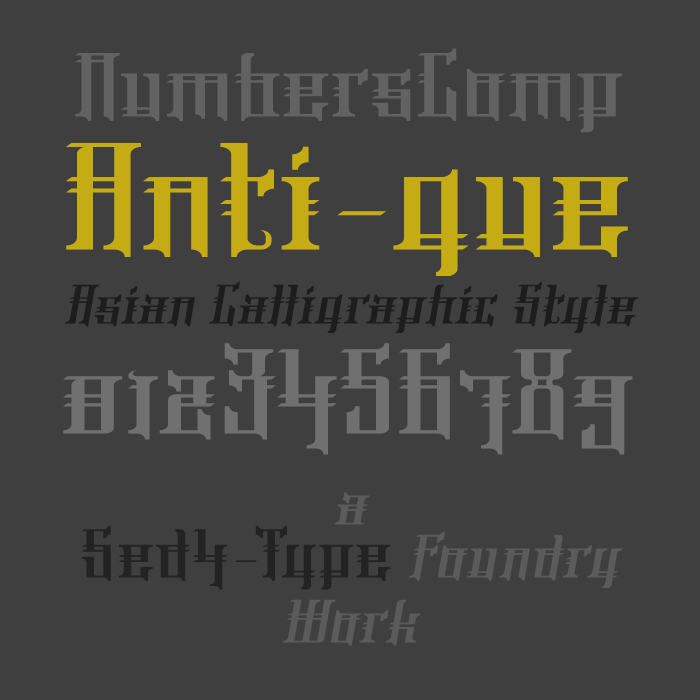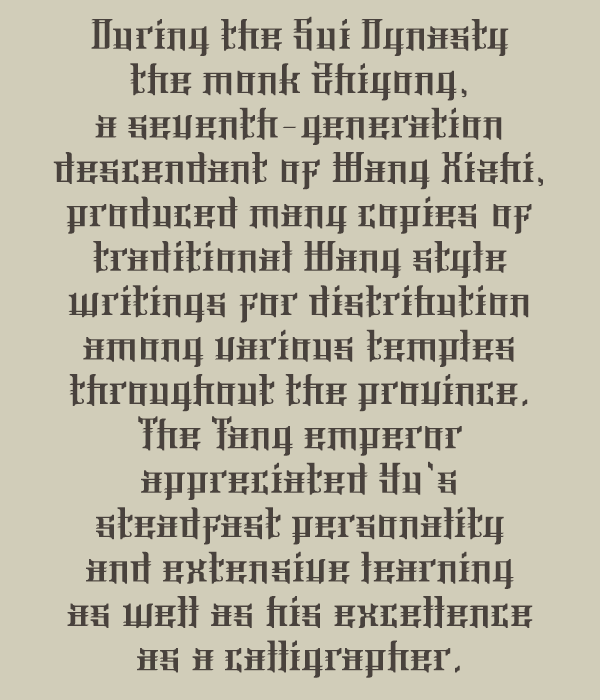
• ANTI-QUE — Asian calligraphy inspired
Anti-que features a romanized lettering concept that was designed to mimic the stylistic properties of Asian calligraphic characteristics.